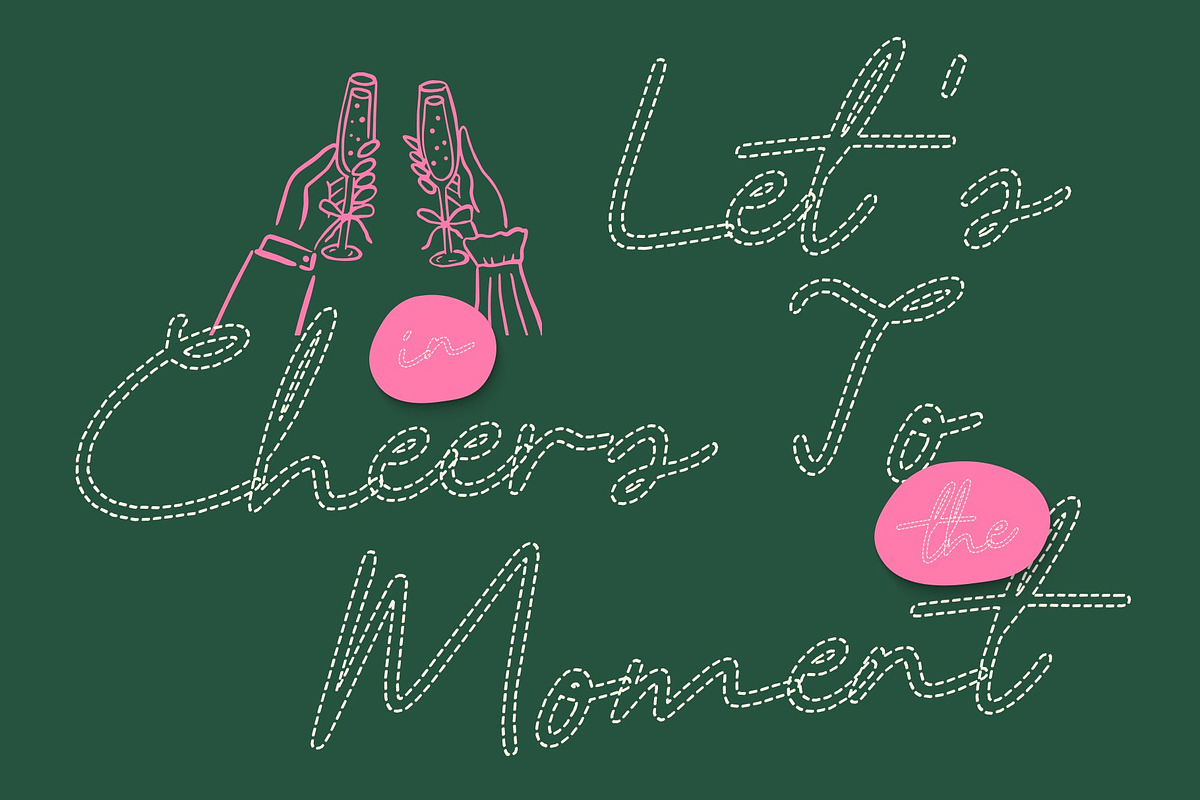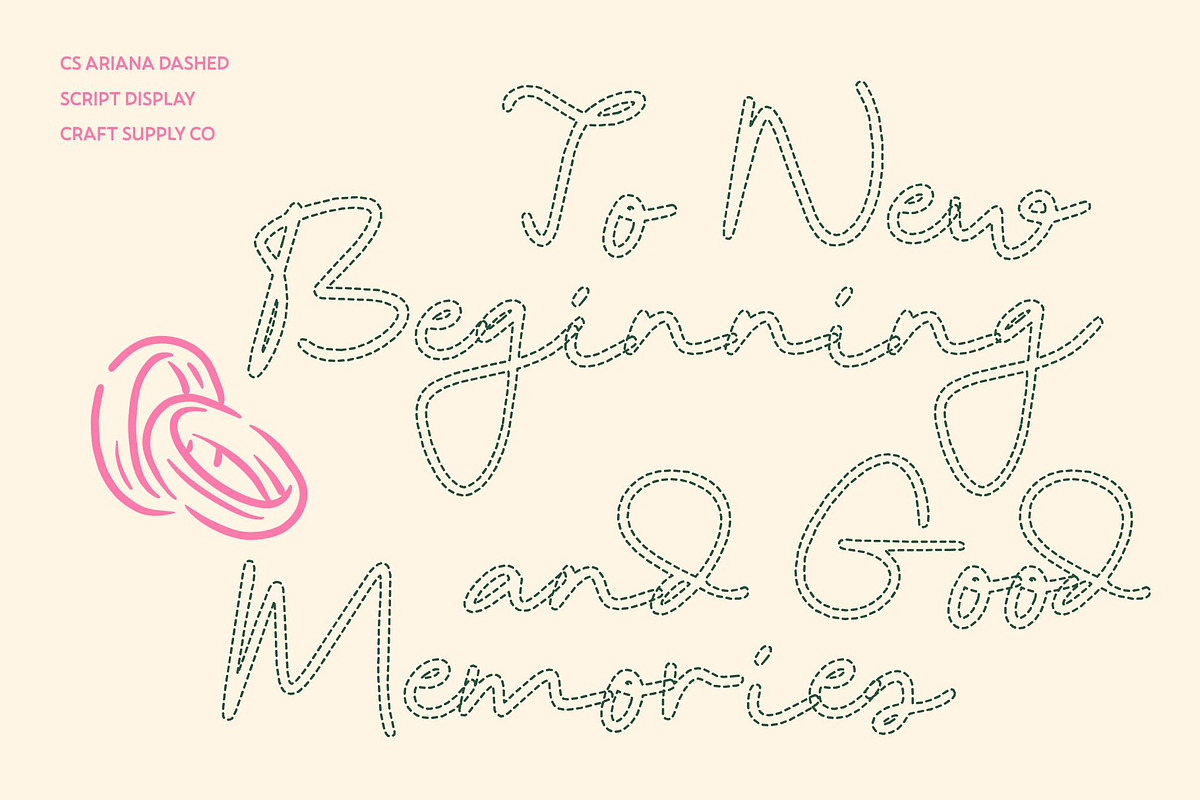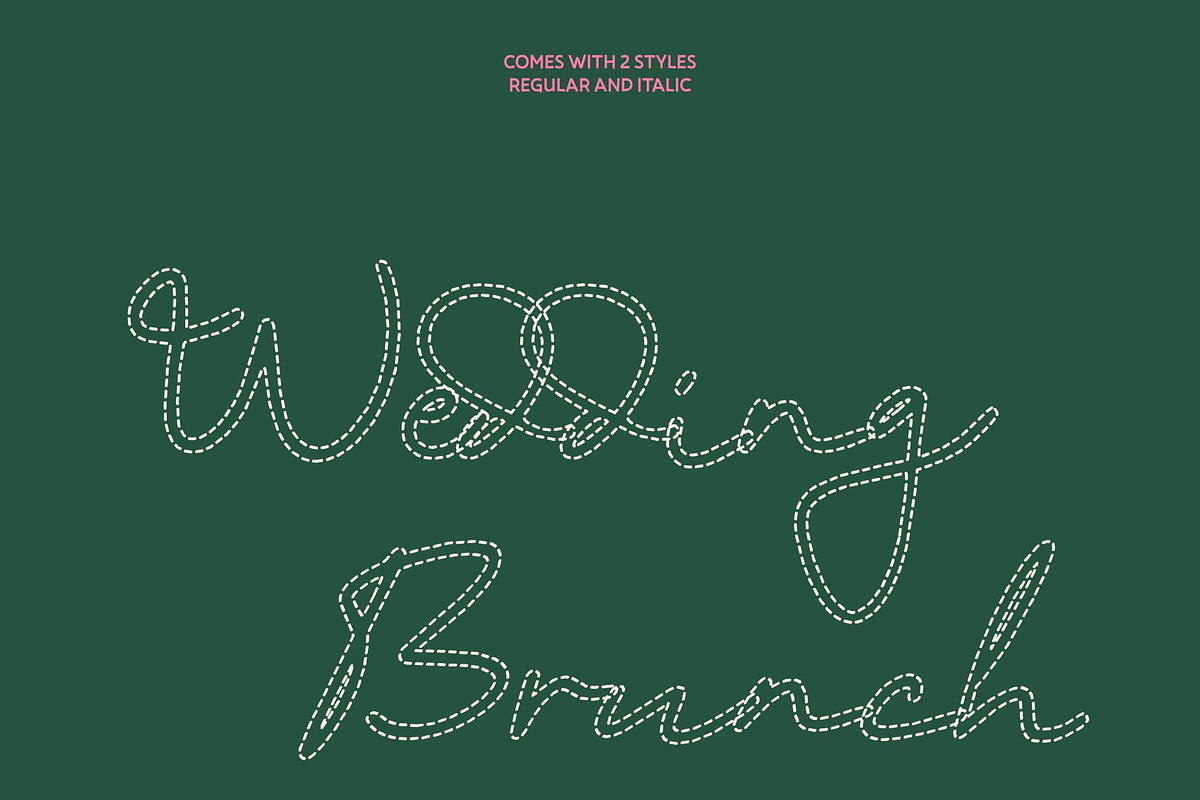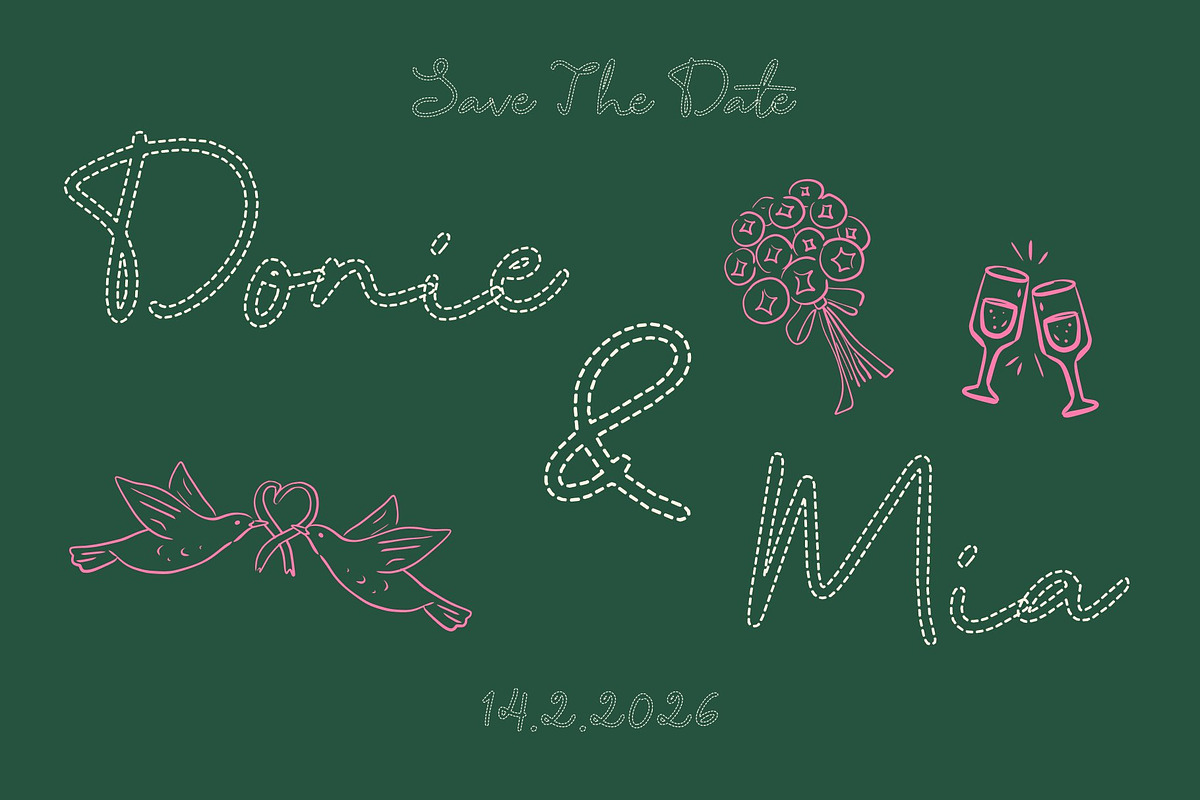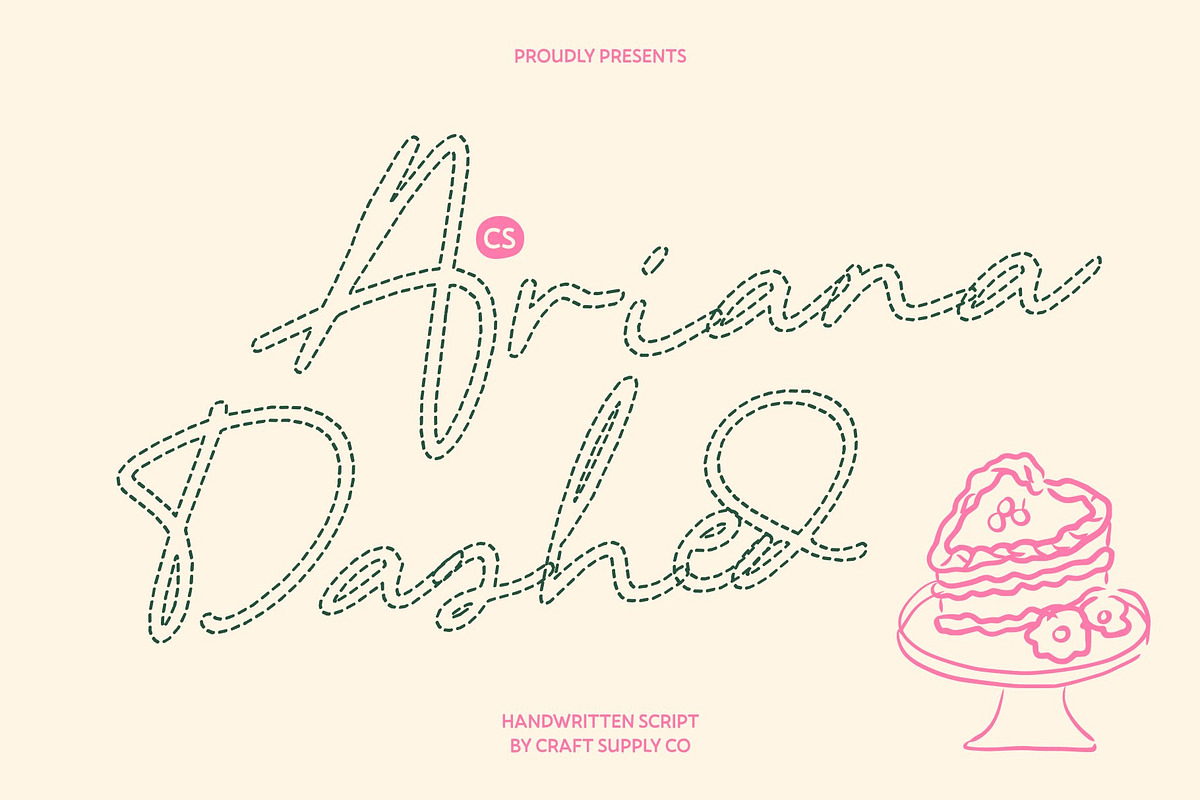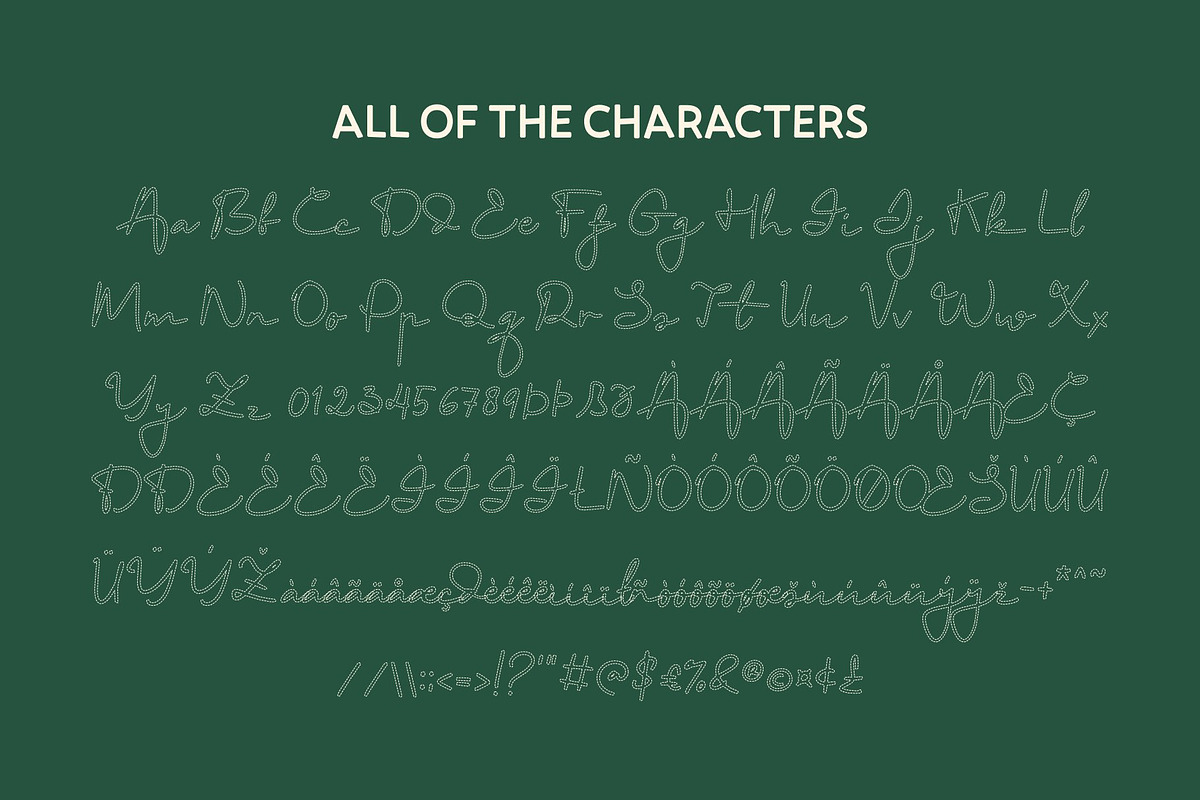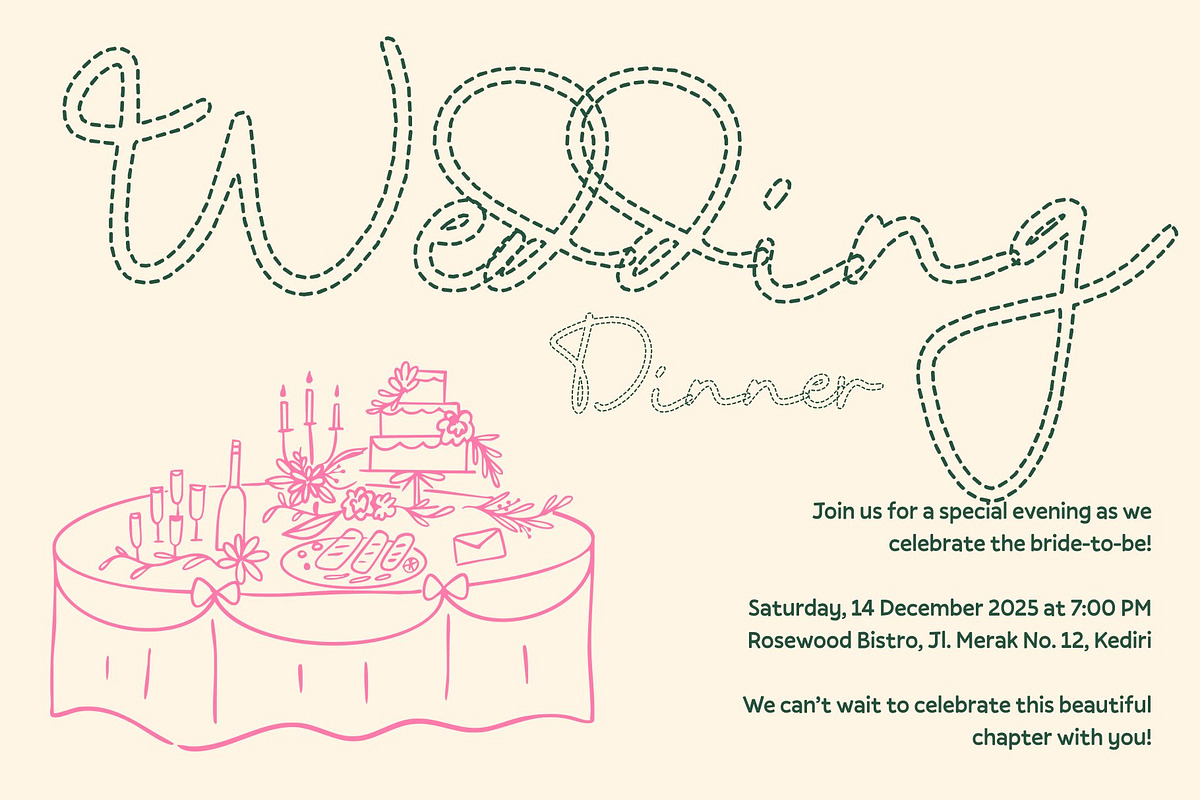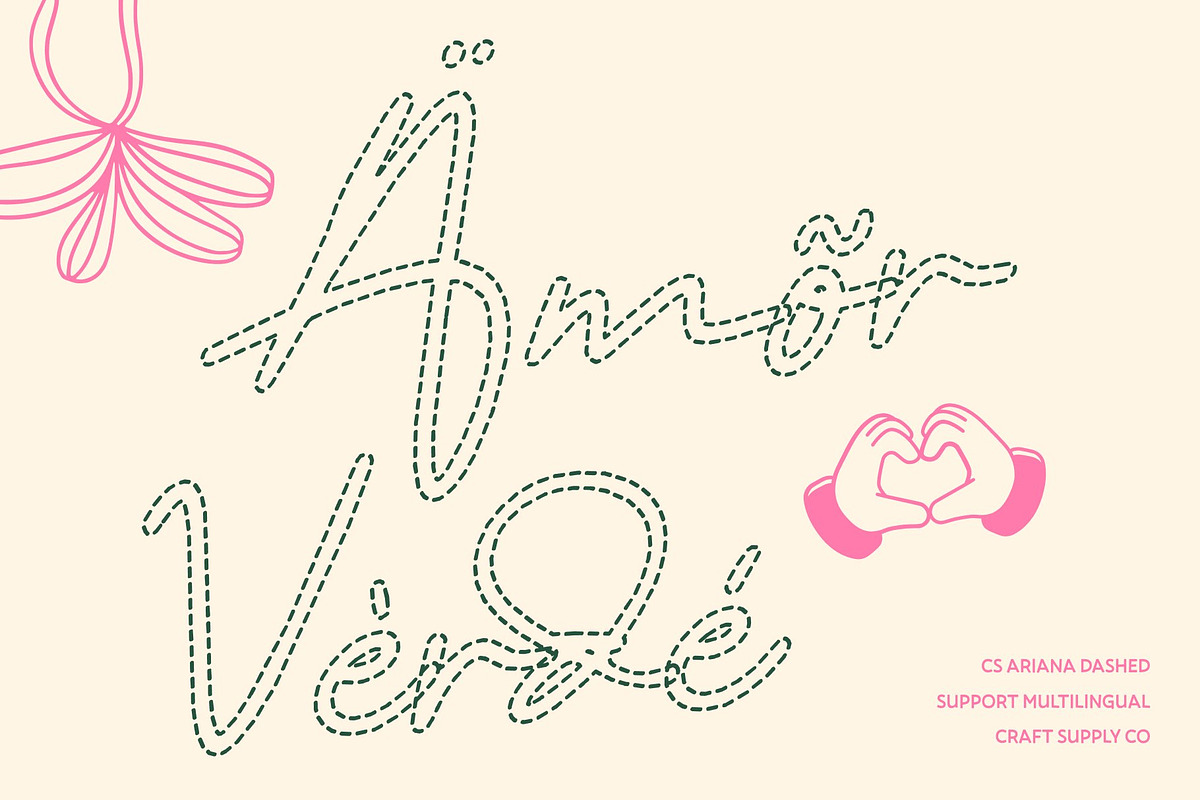
CS Ariana Dashed
CS Ariana Dashed – Romantic Elegance with Delicate Beauty
Romantic Script with Graceful Dashed Flow This is a romantic script font designed to express beauty, softness, and timeless elegance. Its flowing strokes are formed with delicate dashed details, creating a gentle texture that feels airy, emotional, and refined. Inspired by classic handwritten romance, the font maintains a polished and graceful presence while preserving a natural handwritten charm.
Soft Curves with Refined Detail The personality of this font lies in its smooth curves and carefully balanced construction. Each letter flows seamlessly into the next, while the dashed styling adds subtle visual interest and lightness. This combination creates a warm and intimate appearance that feels personal without becoming overly decorative.
Delicate Expression for Romantic Storytelling This font brings a poetic and heartfelt tone to typography. Its graceful movement enhances storytelling, making headlines, quotes, and titles feel expressive and memorable. The elegant rhythm of the script adds emotional depth to any layout.
Perfect for Book Covers, Weddings, and Lifestyle Design Ideal for book covers, wedding invitations, lifestyle branding, and editorial layouts, this font shines in projects that celebrate love, beauty, and sophistication. Its romantic dashed strokes help create designs that feel elegant, sincere, and timeless.
CS Ariana Dashed Regular
CS Ariana Dashed Italic